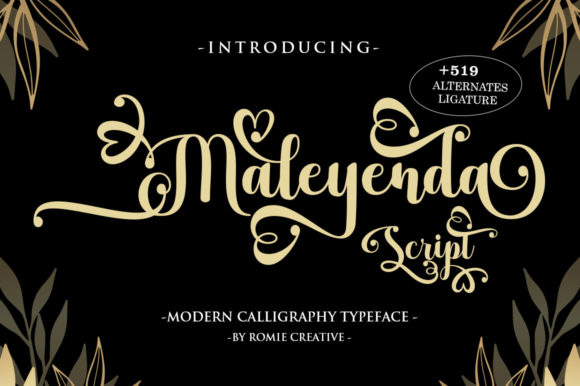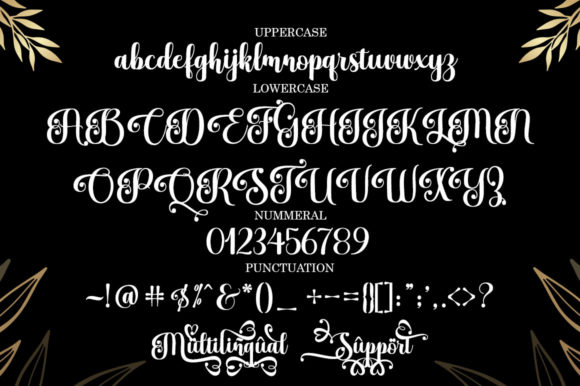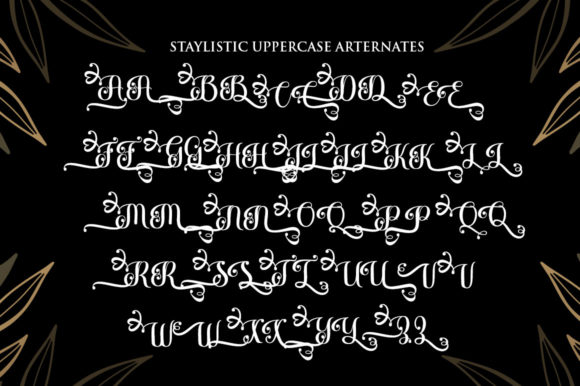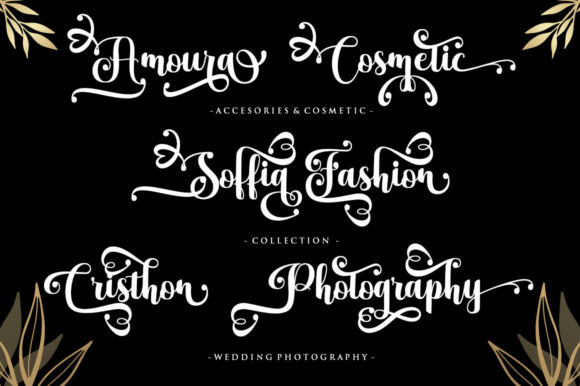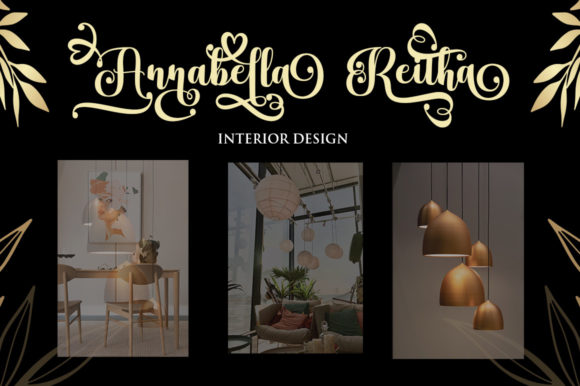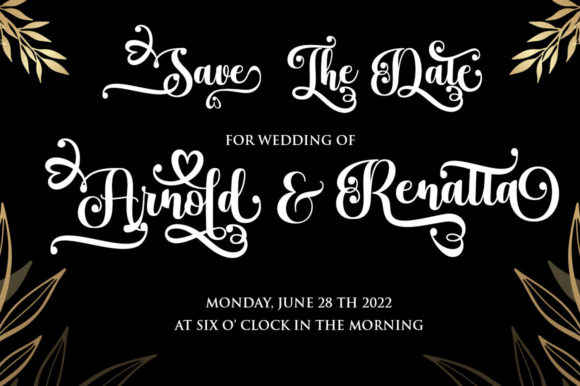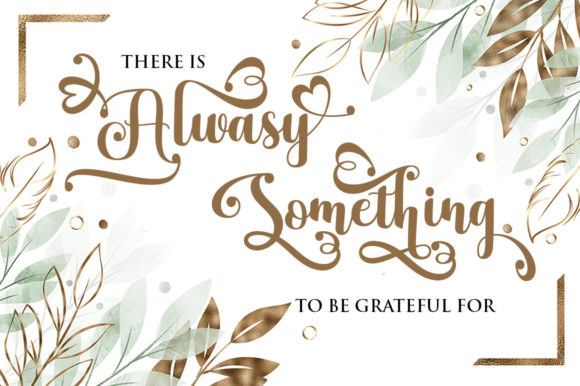
About Maleyenda Script Font
Maleyenda is a calligraphic script font featuring beautiful alternate characters and copper calligraphy, all mixed in a hand-lettering style. This typeface is designed to convey an elegant message.
Maleyenda is attractive because it is subtle, clean, feminine, sensual, glamorous, simple, and easy to read. Its classic style is perfect for all kinds of formal items such as invitations, labels, menus, logos, fashion, make-up, stationery, letterpress, romantic novels, magazines, books, greeting/wedding cards, packaging, labels, etc.